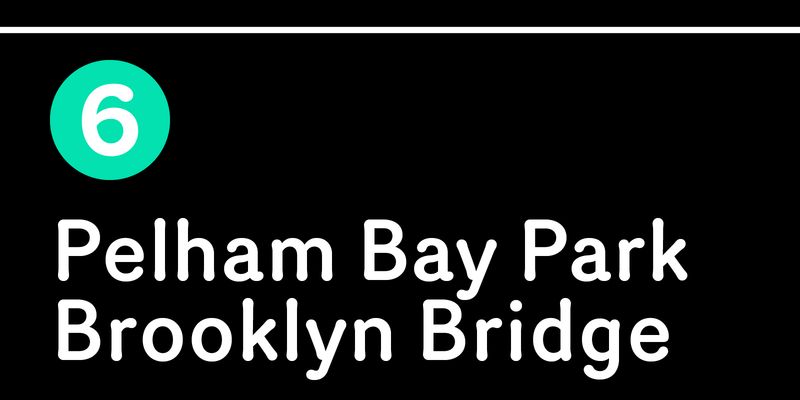
Router Font Free Download
Router Font Free Download is a sleek and modern typeface inspired by geometric design and the digital world. With its sharp edges, clean lines, and industrial feel, this font is ideal for tech-related projects, digital interfaces, branding, logos, and modern design systems that require precision and impact.
Router Font Free Download offers a futuristic look with its balanced proportions and versatile letterforms, making it perfect for both display and body text in a variety of settings. Its minimalistic yet bold design ensures clarity and readability, whether you're working on a tech product website, software interface, or digital media.
The font pairs well with other sans-serifs or decorative fonts, allowing for flexible and dynamic typographic compositions.